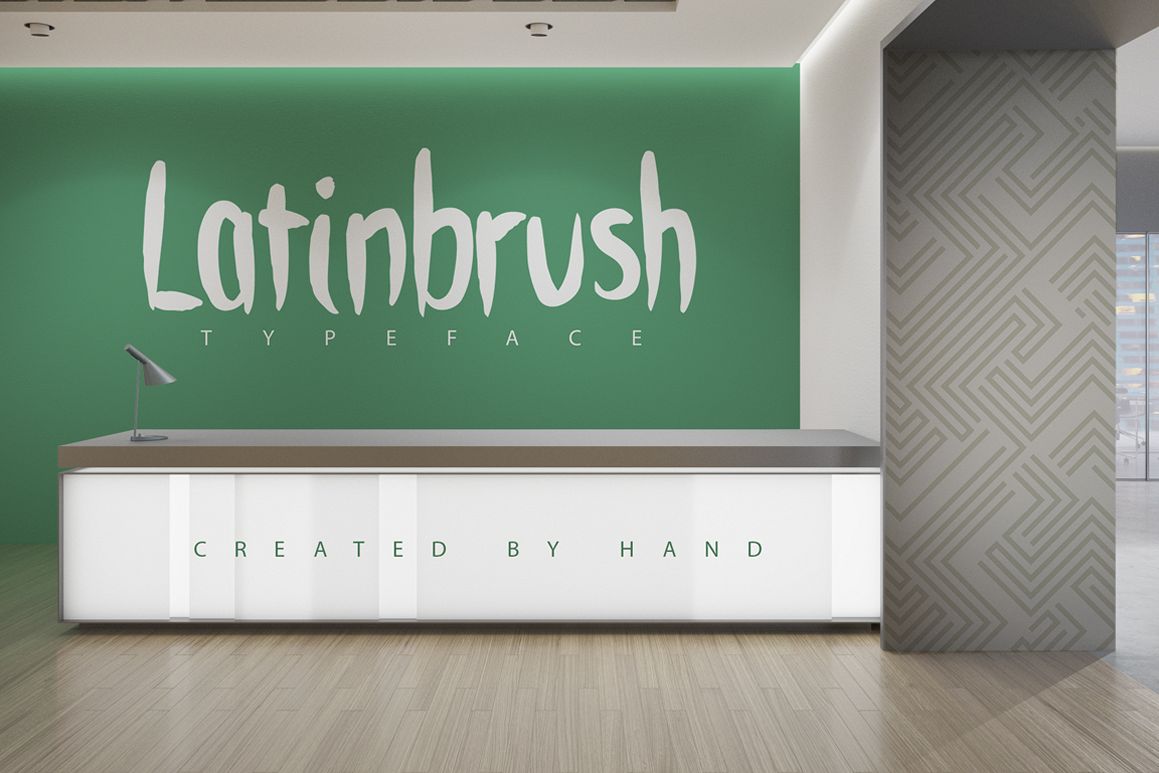
Latinbrush Typeface
Latinbrush.
Latinbrush is a handmade brush font family. It looks like a roundhand familiar letter and computer letter. Perfect for your informal designs. Bold & light letters.